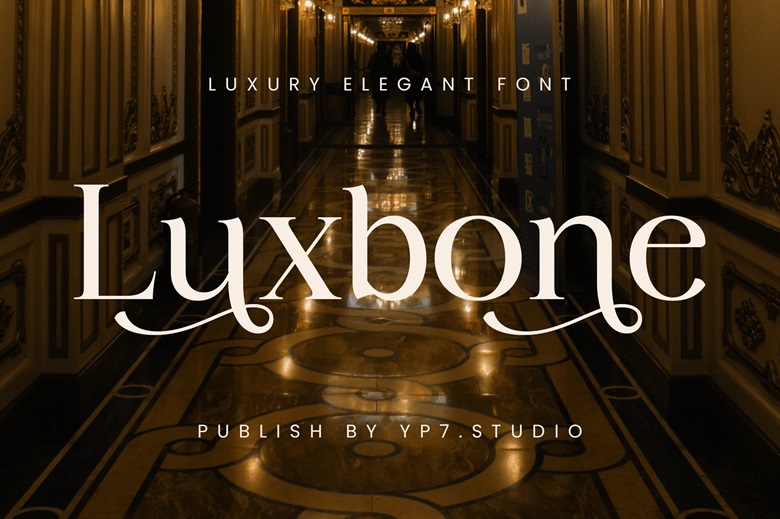
Luxbone Font
Luxbone is an elegant and advanced font, which has a luxurious and modern appearance. This font is a high-end type of commercial but sharp line, which best fits any design especially in branding, logos, packaging and any project that needs elegance and appeal.
Luxbone Serif Font